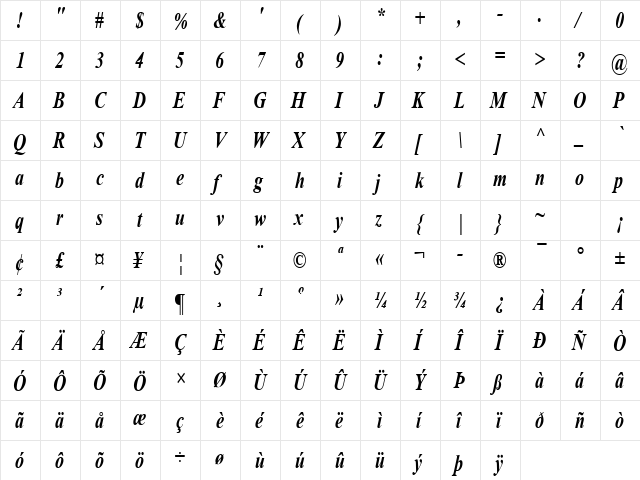
Brain Damage 3 Bold Italic
Design Context for Brain Damage 3 Typeface
Brain Damage 3 offers clean, dependable letterforms without strong stylistic allegiance, making it a practical choice for designers who need flexibility. The dynamic lean of this cut emphasises speed and emphasis in any layout. The heavy weight commands attention and anchors typographic hierarchies.
Pro Tip: Use Brain Damage 3 for emphasis, pull quotes, and subheadings where its slanted energy can add rhythm to the layout.